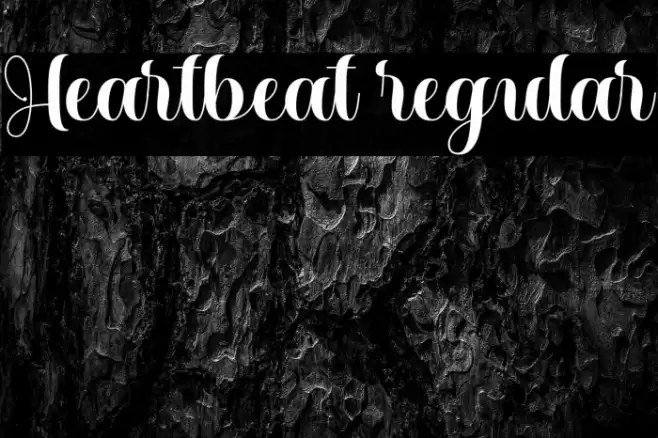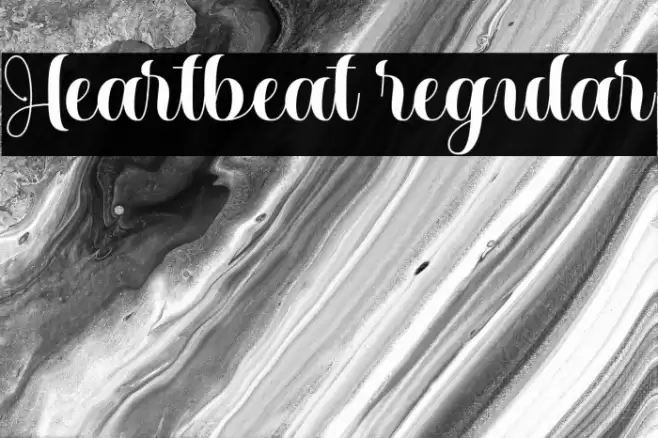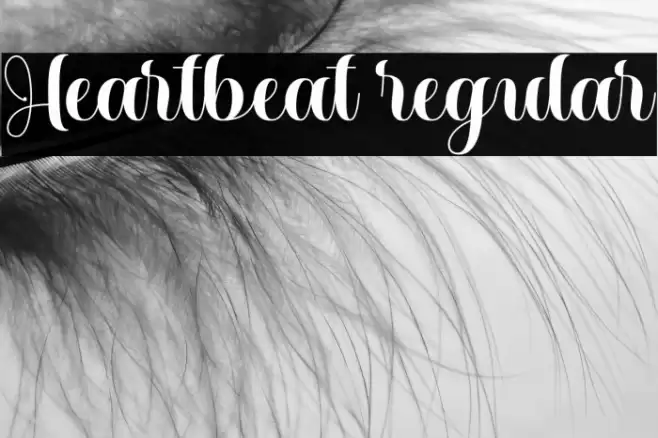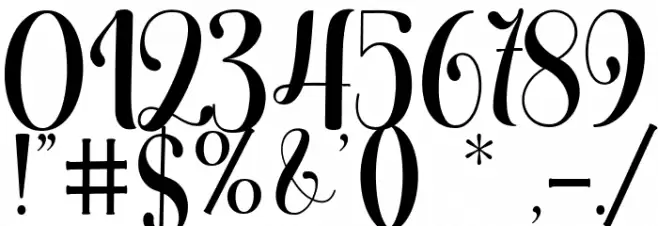
Heartbeat regular Font
Heartbeat regular Description
This font exhibits a lively and elegant script style, characterized by its flowing, interconnected letters that mimic the fluidity of handwriting. The uppercase letters are ornate, with intricate loops and swirls that add a decorative touch. The lowercase letters maintain a consistent flow, enhancing readability while retaining a sense of sophistication. Numbers and special characters are designed with the same attention to detail, ensuring a cohesive look across all glyphs. The overall appearance is both stylish and approachable, making it suitable for a variety of creative applications.
A lively and elegant script font with flowing, interconnected letters from Regular fonts.
- Proposed Projects: Ideal for wedding invitations, greeting cards, branding, and logo design.
- Use Case: Logos, Invitations, Decorative text